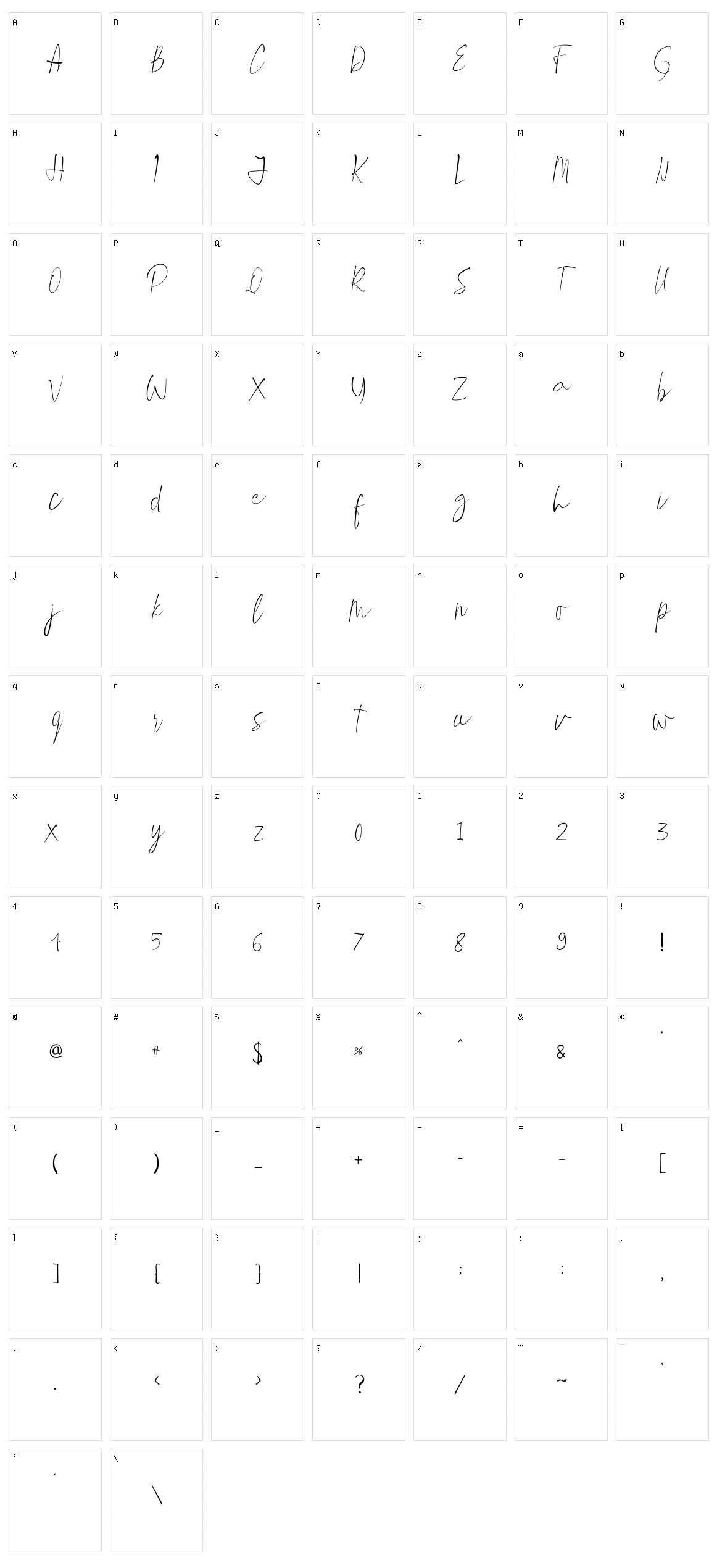
The free font Winter Paradise is carefully designed by Wellscript Studio, showcasing a thoughtful balance of creativity and usability and falls under the Script font style. When you download the ZIP file, it contains only 48.34 KB of font files, making it lightweight and quick to download. Please review the license details below to understand permitted usage and distribution rights. If license information is not available, we recommend using this font for personal projects only or contacting the author directly for commercial usage permissions.